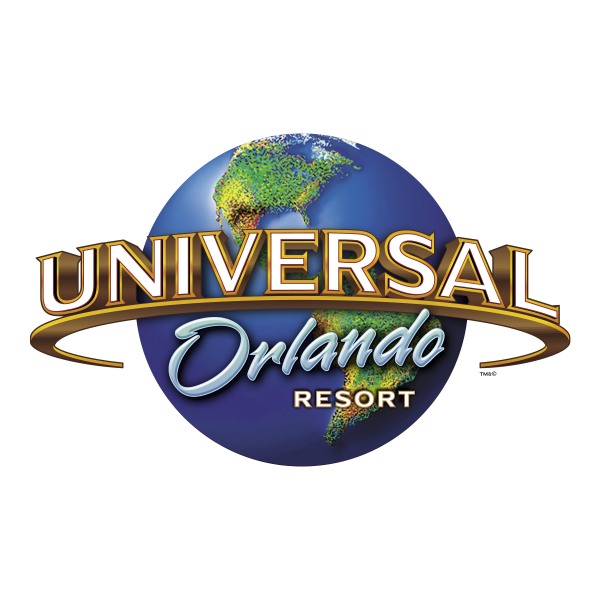
Universal Orlando Font
EntertainmentUniversal Orlando Resort is a popular theme park resort in Florida that features two theme parks, Universal Studios Florida and Islands of Adventure, as well as Universal CityWalk, a dining and entertainment complex.
The Universal Orlando logo uses two different font styles. The words "Universal" and "Resort" are written in Copperplate Gothic, while "Orlando" is set in a brush script font called Rapier, designed by Martin Wait.